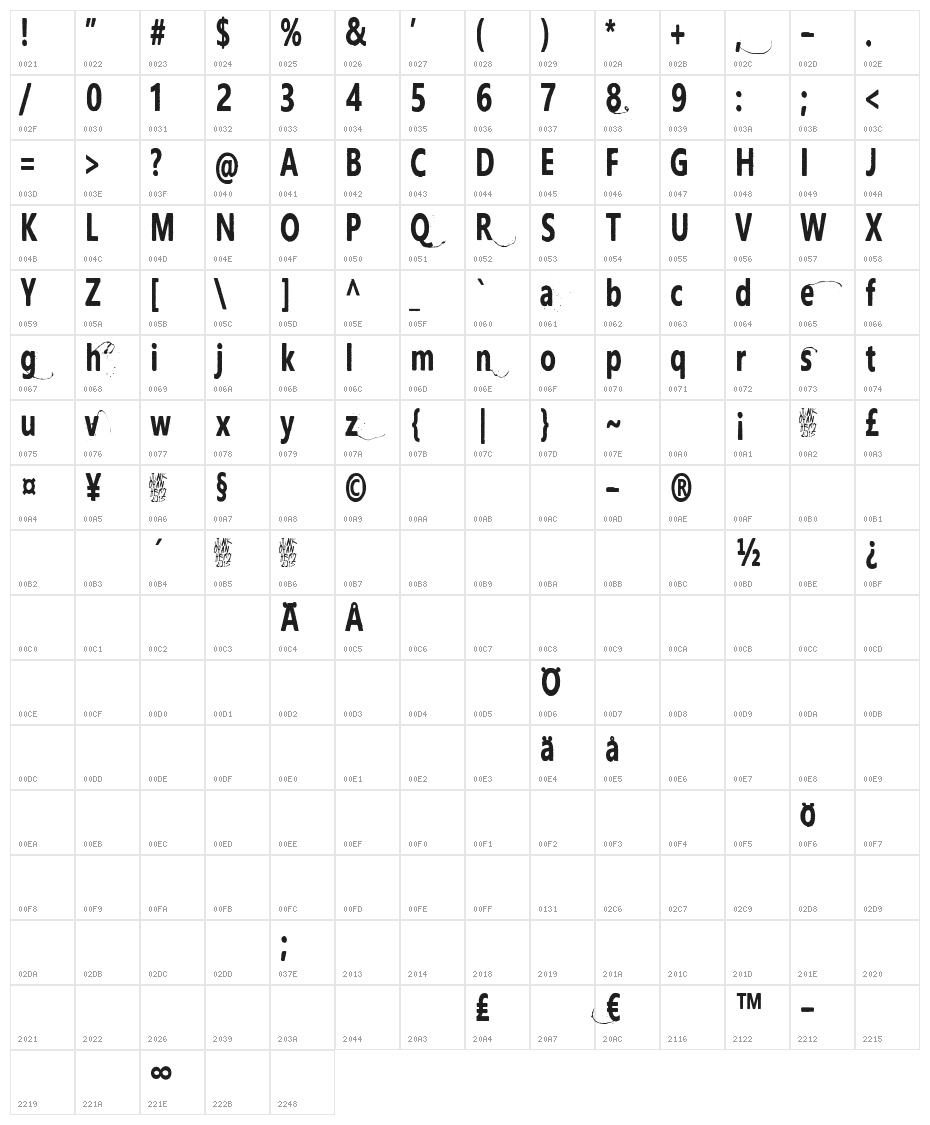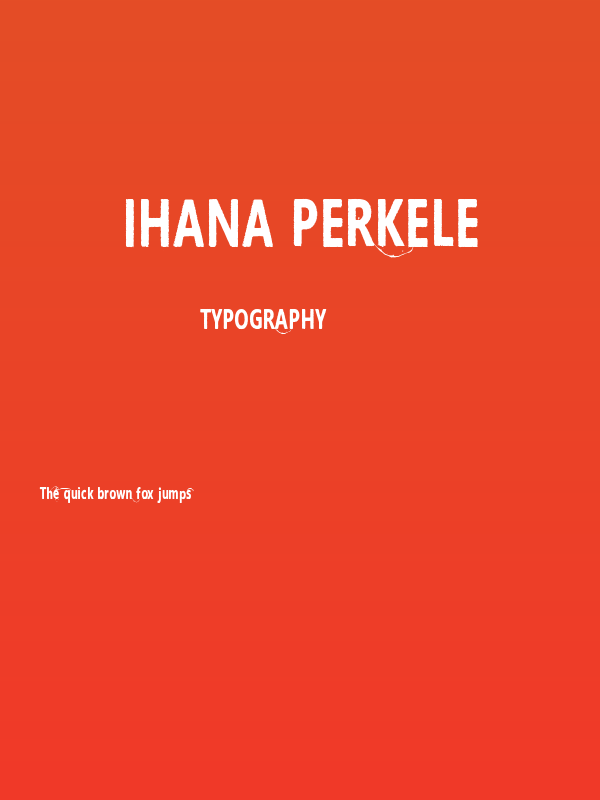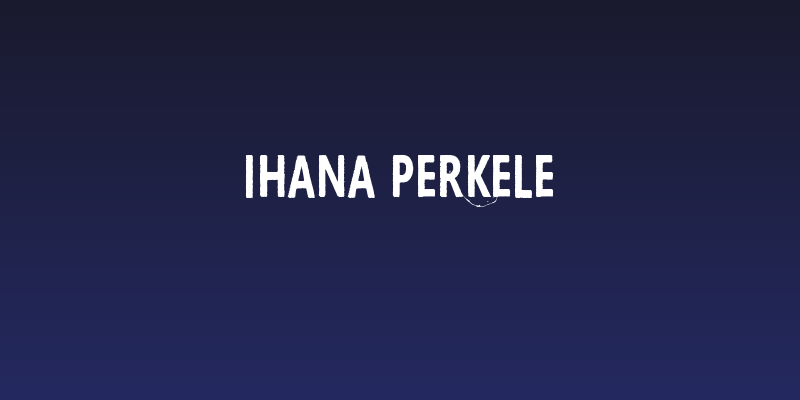
Ihana Perkele Font
Ihana Perkele Description
This font features a bold and impactful style with a slightly distressed texture, giving it a rugged and vintage feel. The characters are uniformly thick, providing a strong presence on the page. The uppercase and lowercase letters maintain consistent proportions, while the numbers are clear and easily distinguishable. The special characters are well-integrated, matching the overall aesthetic. This font's boldness and texture make it suitable for projects that require a strong visual impact.
| Proposed Projects | Ideal for posters, album covers, branding, and any design needing a bold, vintage touch. |